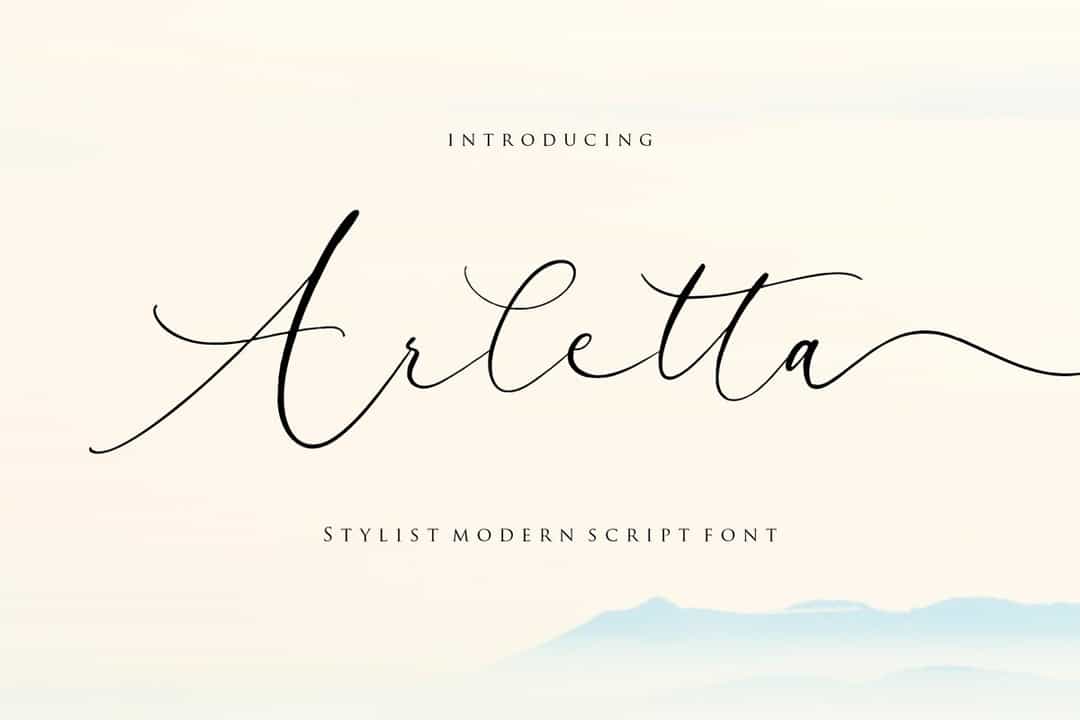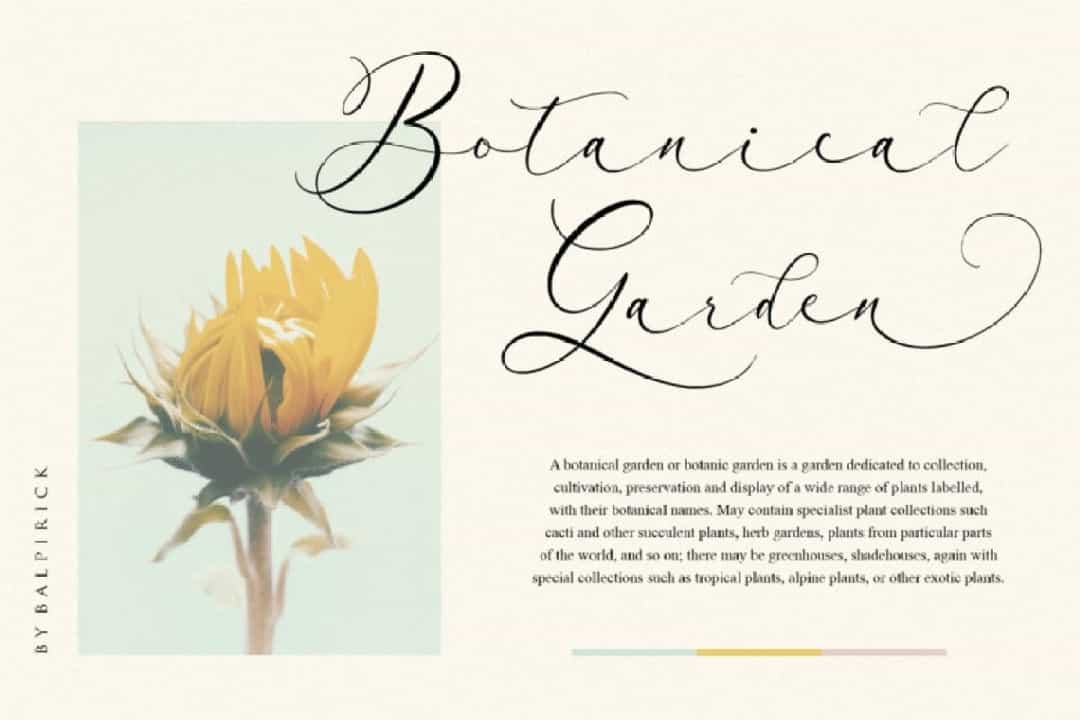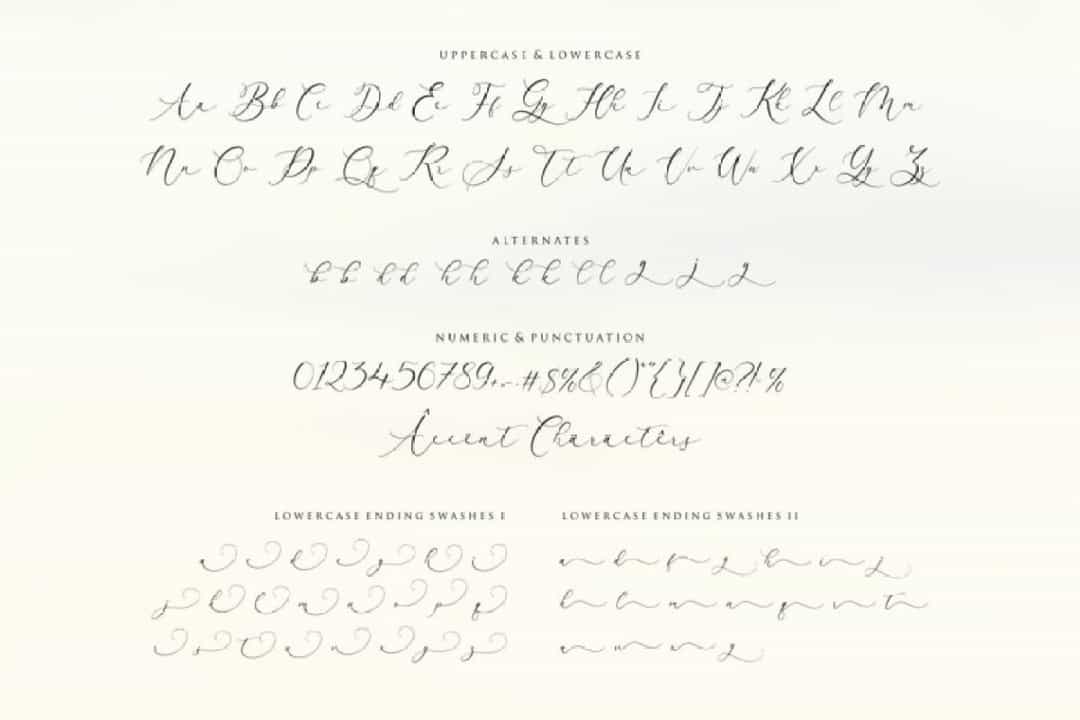
Arletta is a stunning font that has classic appeal and could easily be used across a number of years. They are ideal for designing logos or making branding and quotes because each letter has its unique style that will make designs very beautiful! It uses PUA encoded font which makes it easier for you to get all characters and washes without any struggle!